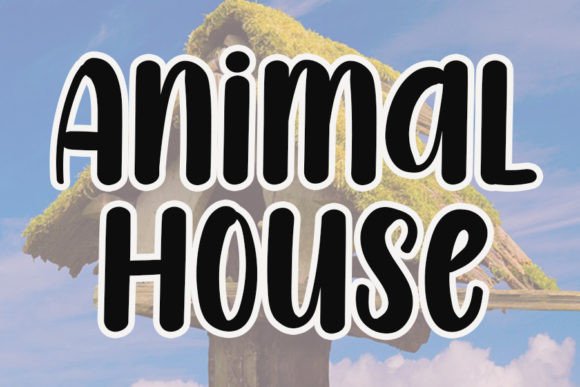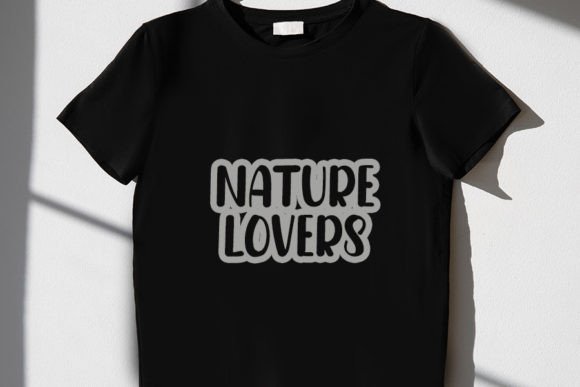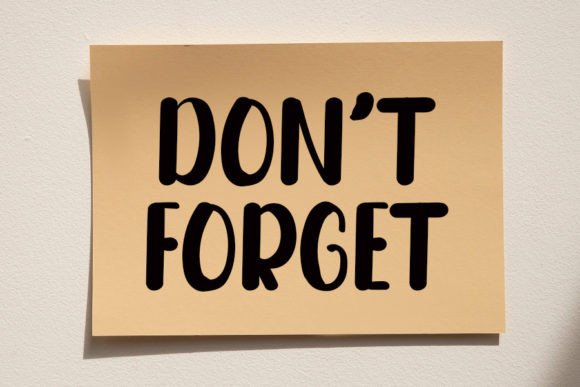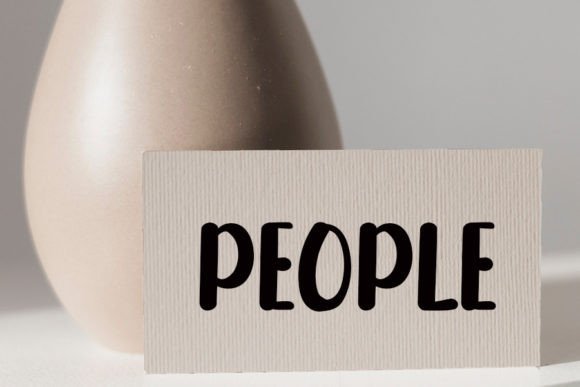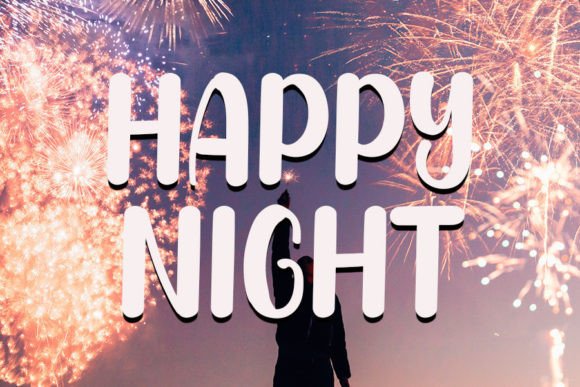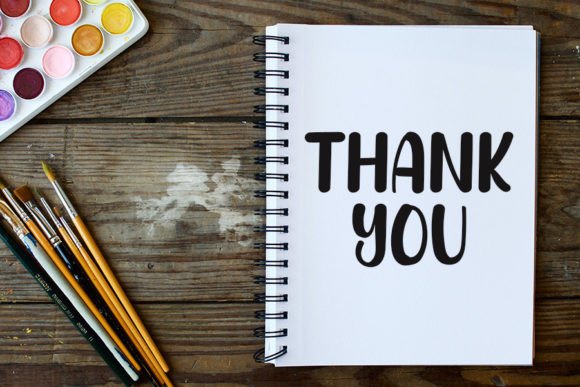
Animal House Font
About Animal House Font
Animal House is a cool handwritten font with a modern vibe and spotless form, inspired by classic calligraphy. Not too thin and not too thick, balanced and varied, this font was designed to enhance the beauty of your projects.